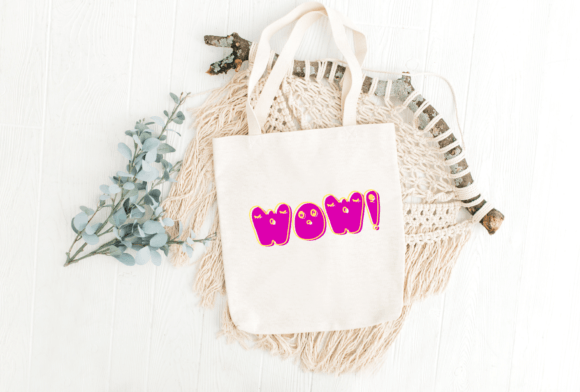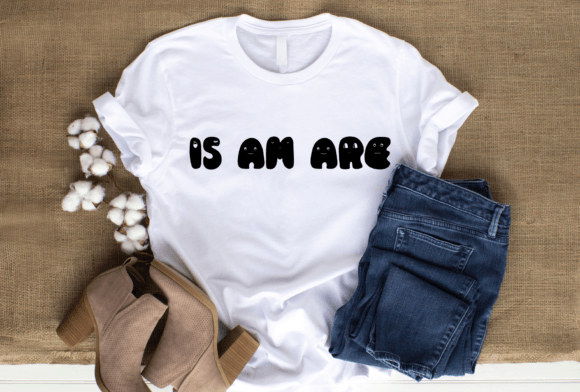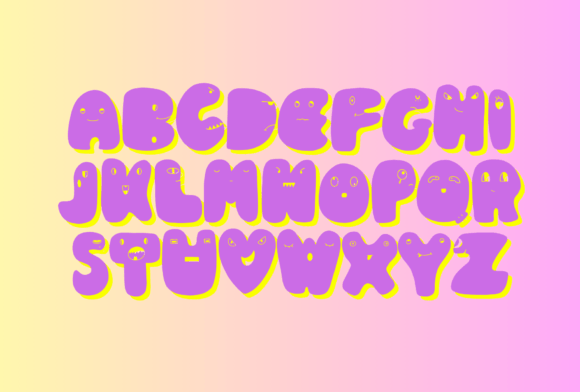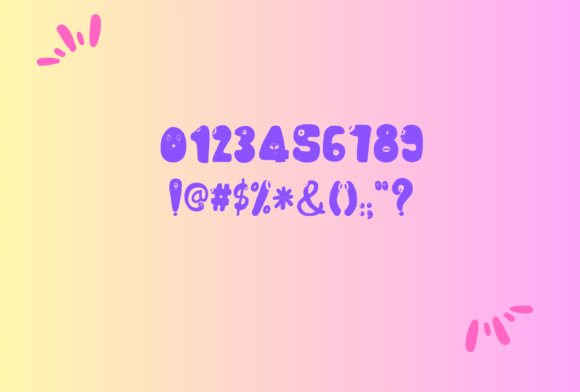
Introducing Happy Eyes Font: Add a Playful Touch to Your Designs
Are you tired of using the same old fonts in your designs? Do you want to add a touch of whimsy and personality to your projects? Look no further than Happy Eyes Font, a fun and adorable display font that’s sure to brighten up any design. With its cute little eyes popping out of each letter, Happy Eyes is the perfect choice for designers and crafters who want to add a bit of quirkiness to their work.
What is Happy Eyes Font?
Happy Eyes Font is a unique and playful display font that’s designed to bring a smile to your face. Each letter in the font features a pair of cute little eyes peeking out, giving your designs a fun and lively feel. The font is perfect for use in a variety of projects, from greeting cards and invitations to posters and social media graphics.
Key Features of Happy Eyes Font
- Unique and playful design: Happy Eyes Font features a one-of-a-kind design that’s sure to stand out in any project.
- Cute little eyes: Each letter in the font includes a pair of adorable eyes that add a touch of whimsy to your designs.
- Whimsical and quirky: Happy Eyes Font is perfect for designers and crafters who want to add a bit of personality to their work.
- Display font: Happy Eyes Font is designed for use as a display font, making it perfect for headlines, titles, and other large text elements.
Uses for Happy Eyes Font
Happy Eyes Font is a versatile font that can be used in a wide range of projects, including:
- Greeting cards and invitations: Add a playful touch to your greeting cards and invitations with Happy Eyes Font.
- Posters and flyers: Use Happy Eyes Font to create eye-catching posters and flyers that are sure to grab attention.
- Social media graphics: Add a bit of personality to your social media graphics with Happy Eyes Font.
- Crafting projects: Happy Eyes Font is perfect for use in a variety of crafting projects, from scrapbooking to DIY signs.
Tips for Using Happy Eyes Font
Here are a few tips for getting the most out of Happy Eyes Font:
- Use it sparingly: Happy Eyes Font is a bold and playful font, so it’s best to use it sparingly to avoid overwhelming your design.
- Pair it with a simple font: Pair Happy Eyes Font with a simple font to create a striking contrast.
- Experiment with colors: Happy Eyes Font looks great in a variety of colors, so don’t be afraid to experiment and find the perfect color for your design.
Happy Eyes Font is a fun and adorable display font that’s sure to add a playful touch to any design. With its cute little eyes and whimsical design, Happy Eyes Font is perfect for designers and crafters who want to add a bit of personality to their work. Whether you’re creating greeting cards, posters, or social media graphics, Happy Eyes Font is a great choice. So why not give it a try and see how it can brighten up your designs?